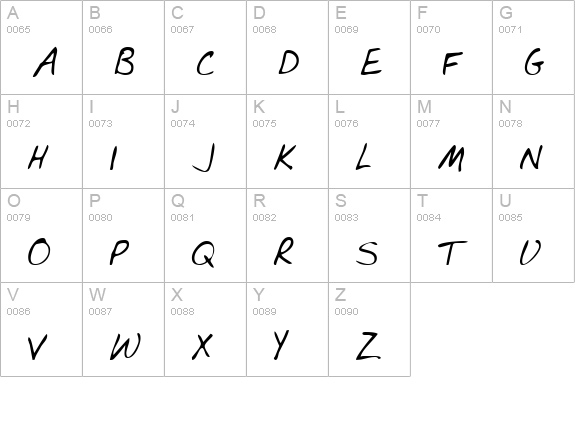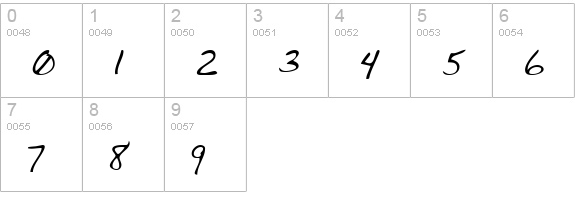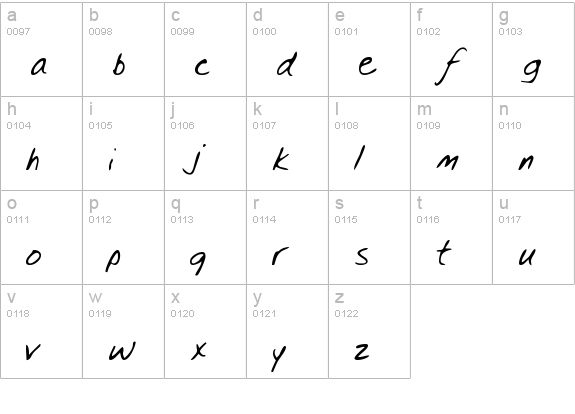
TylersHand Regular Font Details
TylersHand Regular is the standard, neutral variant in the TylersHand typeface family \xE2\x80\x94 well suited to general body text, paragraphs, and standard typographic work.
TylersHand Regular font is a visually appealing typeface that combines elegance with a touch of playfulness. With its smooth and flowing letterforms, this font captures the essence of handwritten script, making it perfect for a variety of design projects. Whether you're creating invitations, branding materials, or advertising campaigns, TylersHand Regular font will add a unique and personal touch to your work. Its versatility allows it to be used in both formal and casual settings, making it a go-to choice for designers and creatives alike. The best part? TylersHand Regular font is available for free! You can easily download it at FontsMarket.com, a trusted source for high-quality fonts. By offering this font for free, we aim to make it accessible to everyone, regardless of their budget or design needs. So why wait? Enhance your designs with TylersHand Regular font and let your creativity shine. Download it today and unleash the power of beautiful typography in your projects.